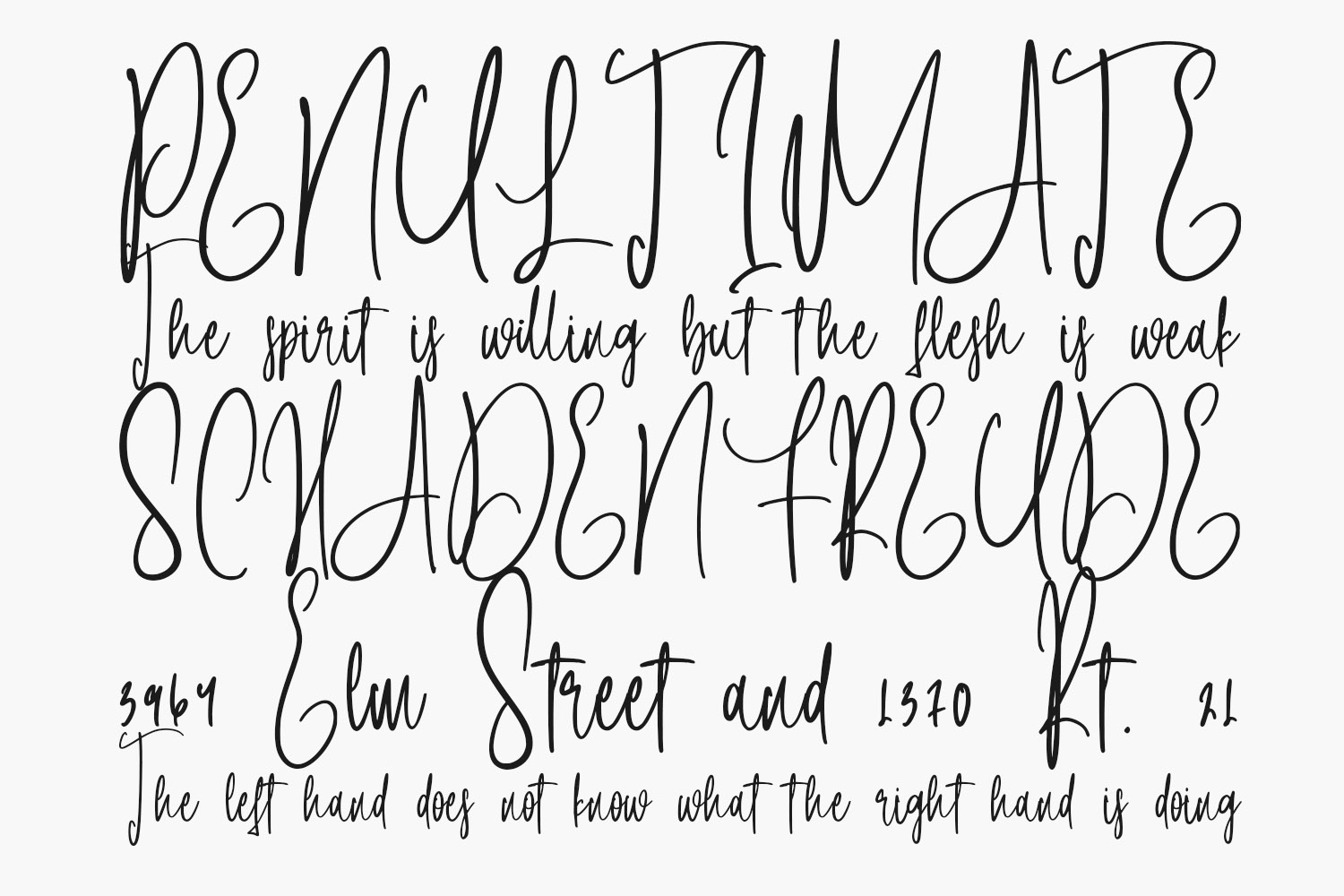
Lintang Kangen Free Font is a beautiful and refined script font. It has a classy, elegant, and modern look that can be used for logos, branding, invitations, stationery, wedding designs, social media posts, and much more. Lintang Kangen Free Font was designed by StringLabs and is free for personal use only. Please purchase the full version for commercial use.